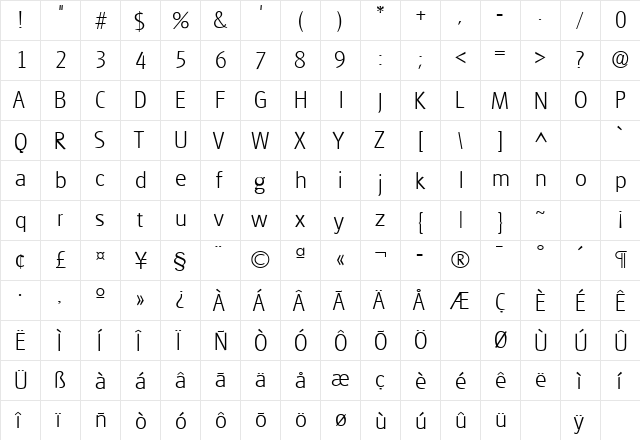
GlasgowLH Regular
Design Context for GlasgowLH Typeface
GlasgowLH takes a measured approach to typography — its balanced proportions and neutral character make it a reliable workhorse for both digital and print work.